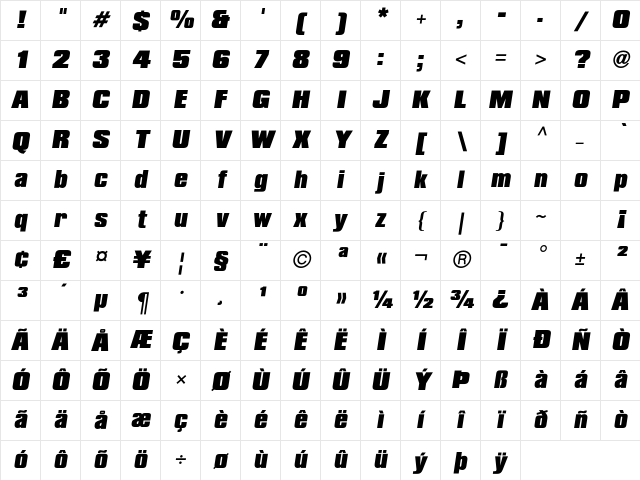
CompactaICG BlackItalic
Style: BlackItalic
CompactaICG Family
CompactaICG BlackItalic
Complete CompactaICG BlackItalic glyph index. Displaying only characters natively supported by CompactaICG BlackItalic font.
Design Context for CompactaICG
CompactaICG is a composed and adaptable typeface that performs quietly and consistently across a wide range of design contexts. The slanted form adds forward momentum and visual energy. Its narrow stance lets it pack a punch even in space-constrained designs.
Pro Tip: Use CompactaICG for emphasis, pull quotes, and subheadings where its slanted energy can add rhythm to the layout.